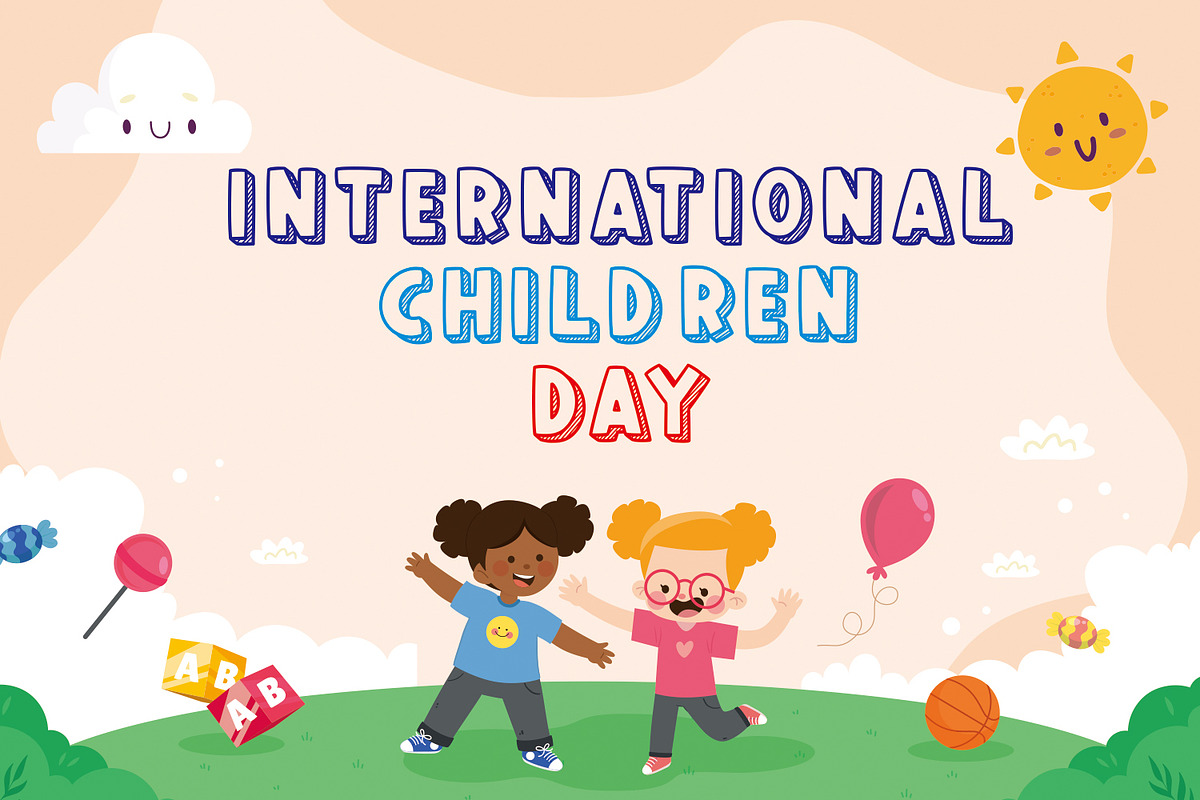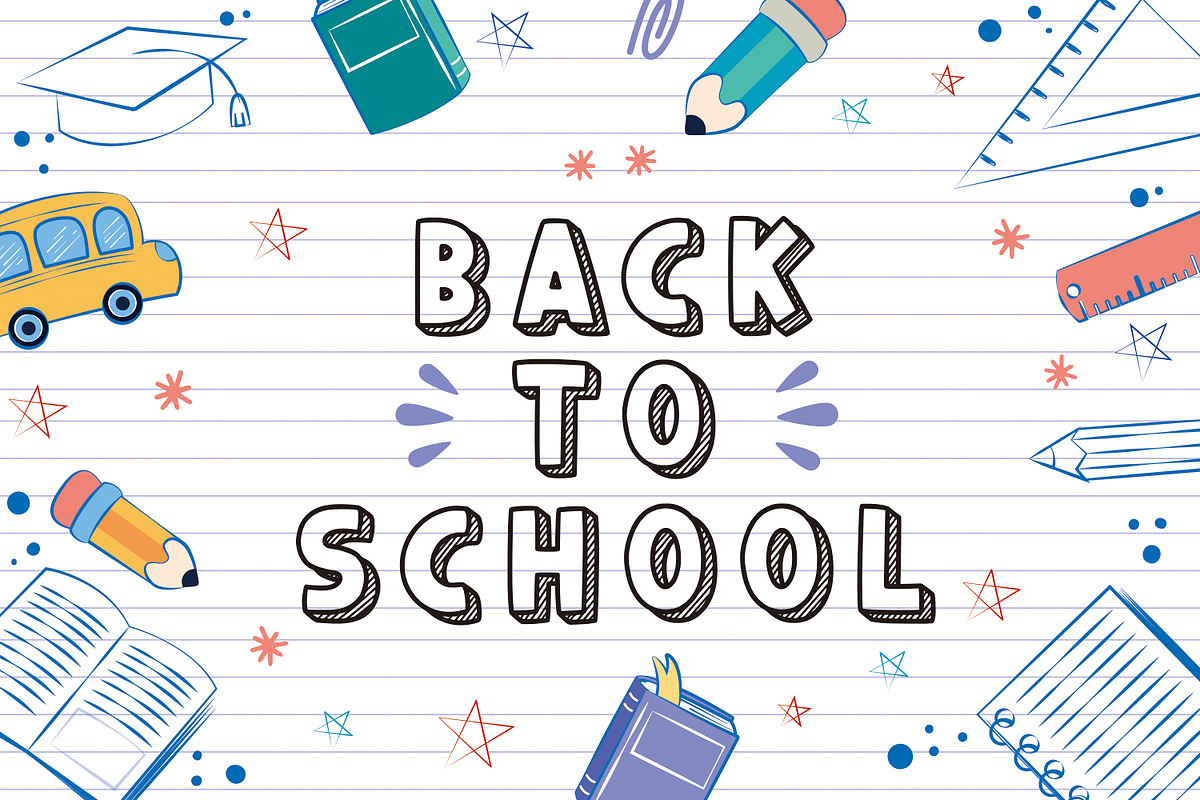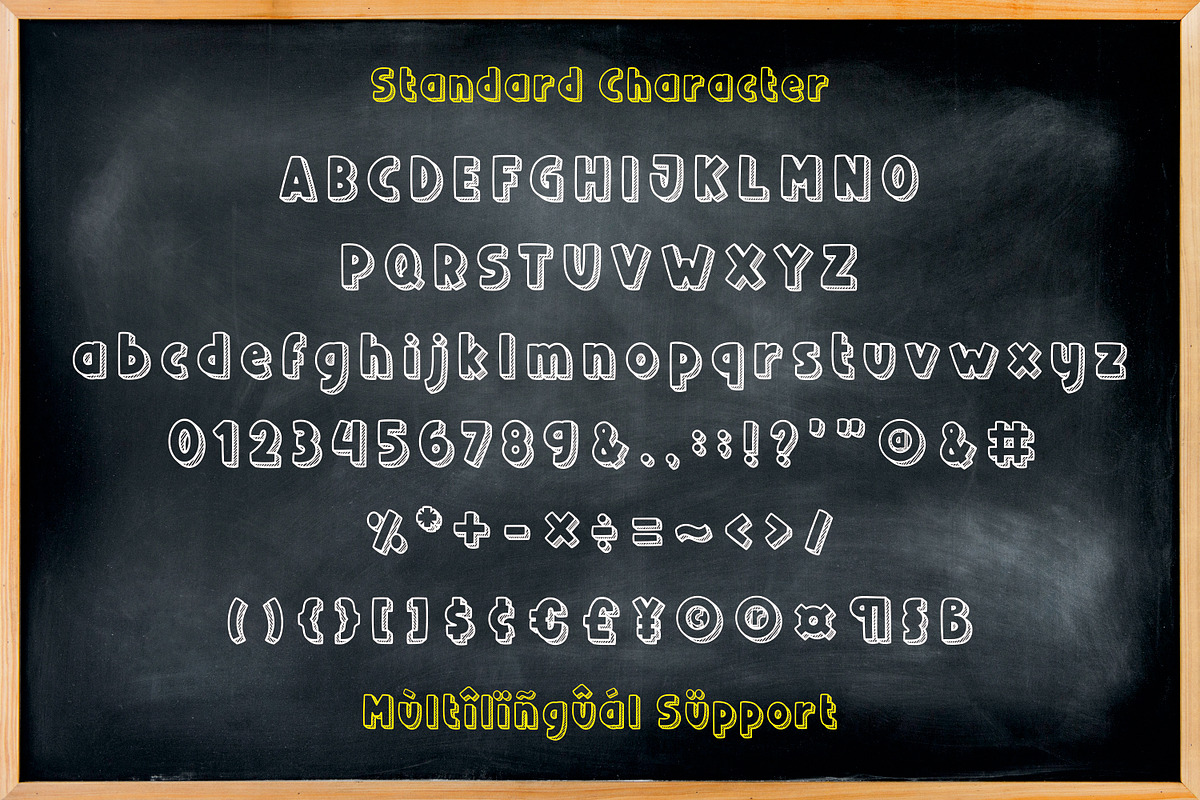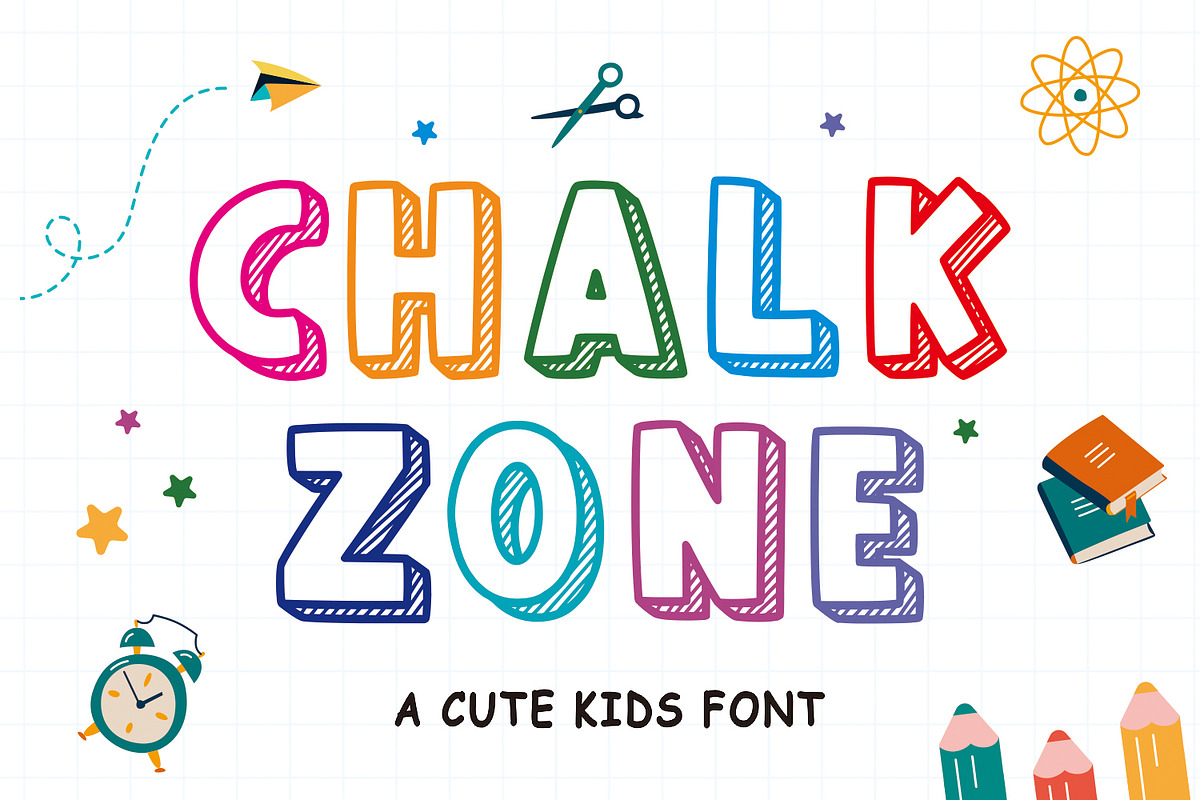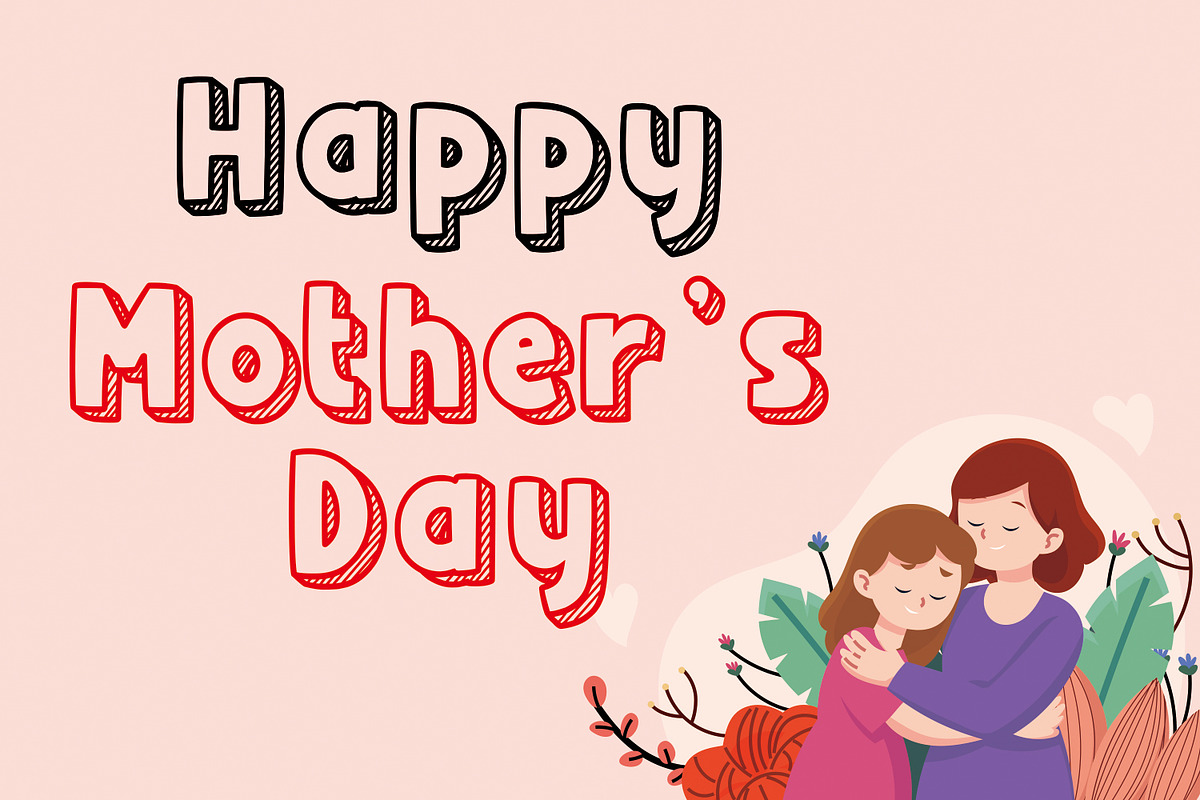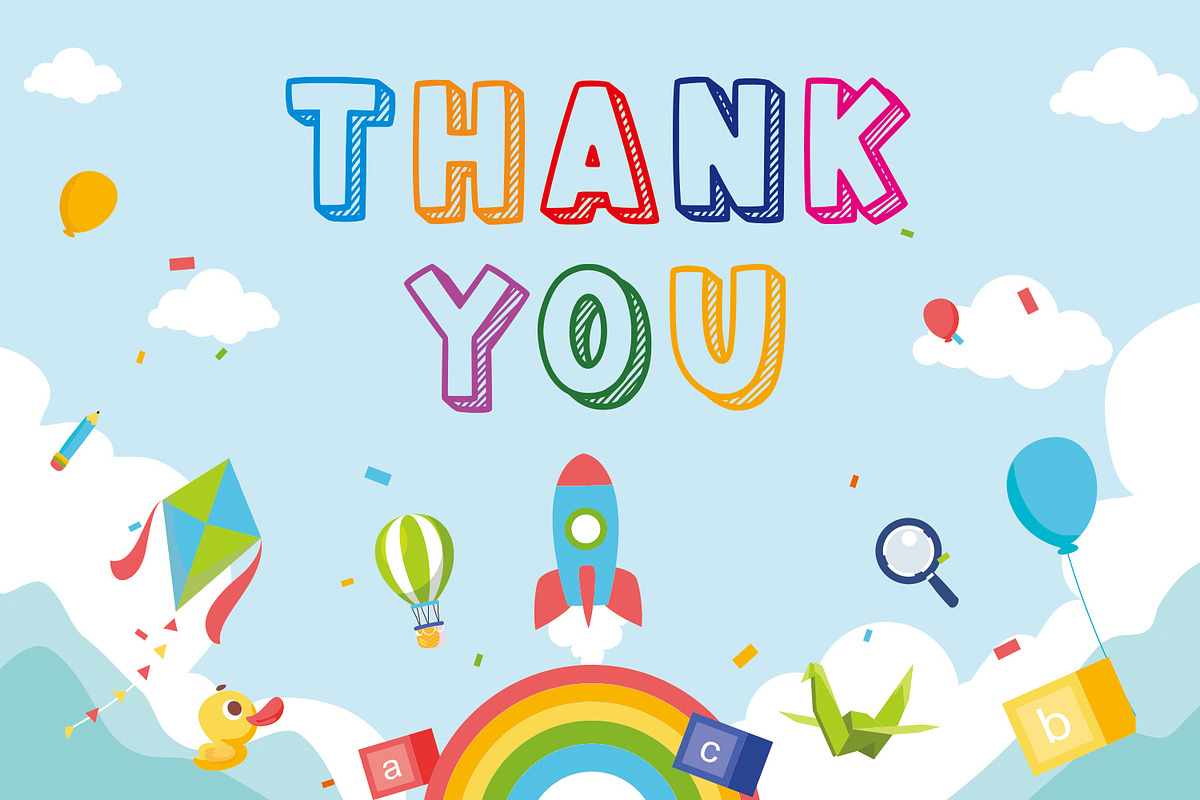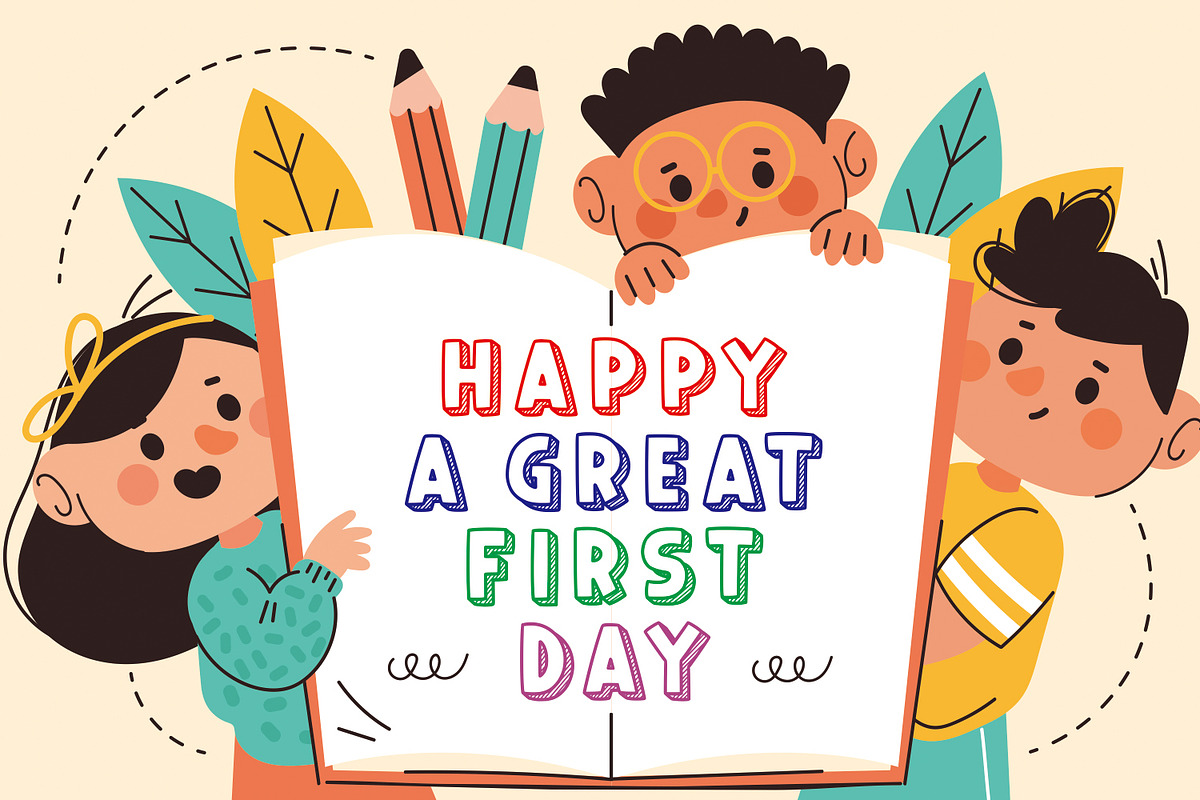
CHALKZONE
ChalkZone font embodies a vibrant and playful display style, reminiscent of colorful chalk writings on a blackboard. It evokes a sense of nostalgia, perfect for back-to-school themes, birthday cards, children's writings, chalk-inspired designs, holiday greetings like Thanksgiving, crafting endeavors, kid-centric greeting cards, decorations, craft lettering projects, and even embroidery.
This whimsical font carries the essence of youthful exuberance, featuring rounded edges and vivid, lively hues that mimic the look of hand-drawn chalk. Its versatility lies in its ability to infuse a sense of joy and creativity into various projects, whether it's recreating a classroom feel for educational purposes or adding a playful touch to holiday-themed crafts.
ChalkZone font adds a cheerful and animated flair to any design, making it an ideal choice for those seeking a vibrant and child-friendly aesthetic in their creations. Its charming appeal resonates well with activities and occasions that celebrate the imaginative and spirited essence of childhood